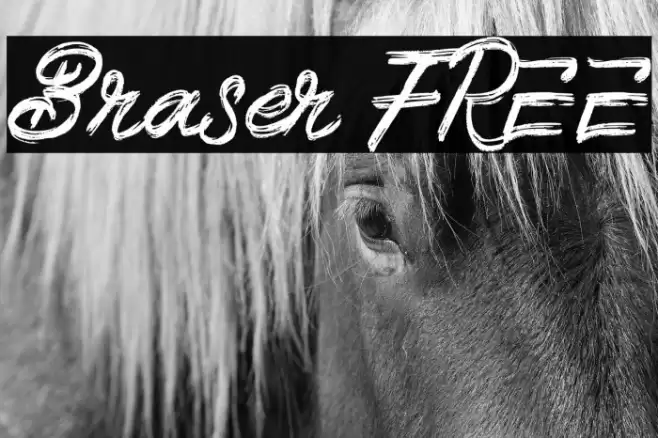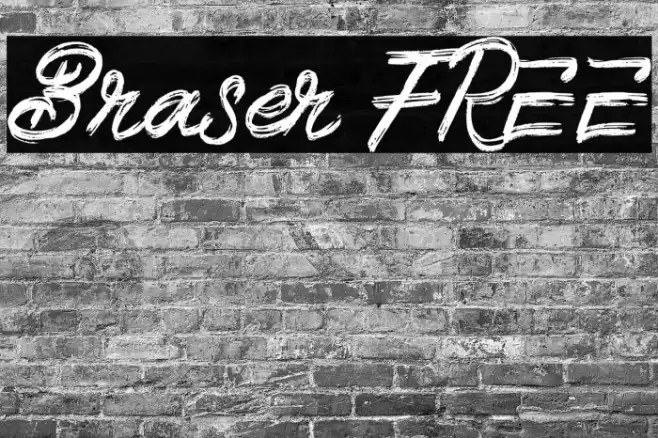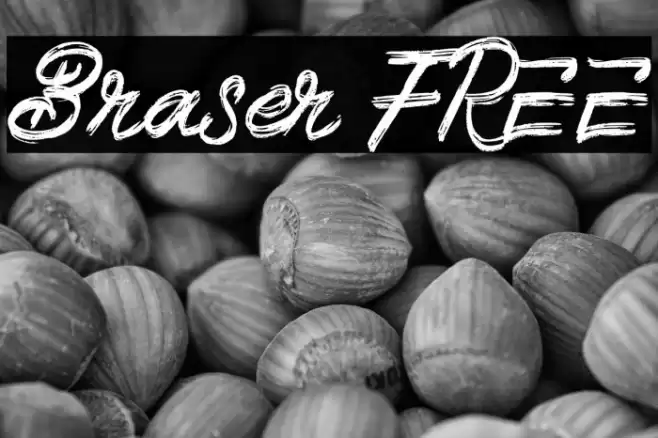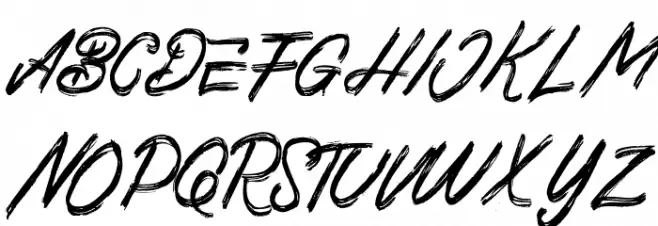
Braser FREE Font
Braser FREE Description
This font exhibits a bold, expressive style with a handwritten script appearance. The strokes are dynamic and fluid, giving a sense of movement and energy. Each character is crafted with a rough, textured edge, adding a raw and artistic feel. The uppercase and lowercase letters maintain a consistent flow, while the numbers and special characters integrate seamlessly with the overall design. The font's unique brush-like quality makes it stand out, offering a creative and informal aesthetic.
A bold, expressive handwritten script with a textured, brush-like style from Regular fonts.
- Proposed Projects: Ideal for creative projects such as logo design, branding, posters, and invitations where a personal and artistic touch is desired.